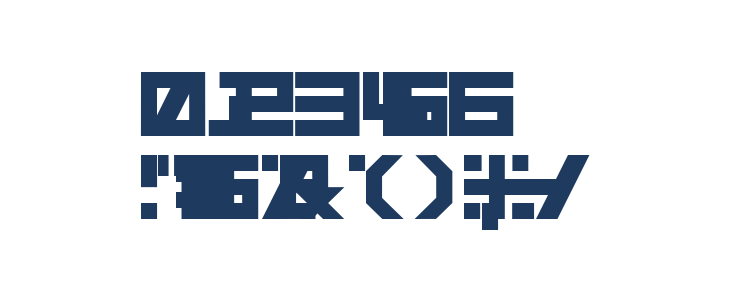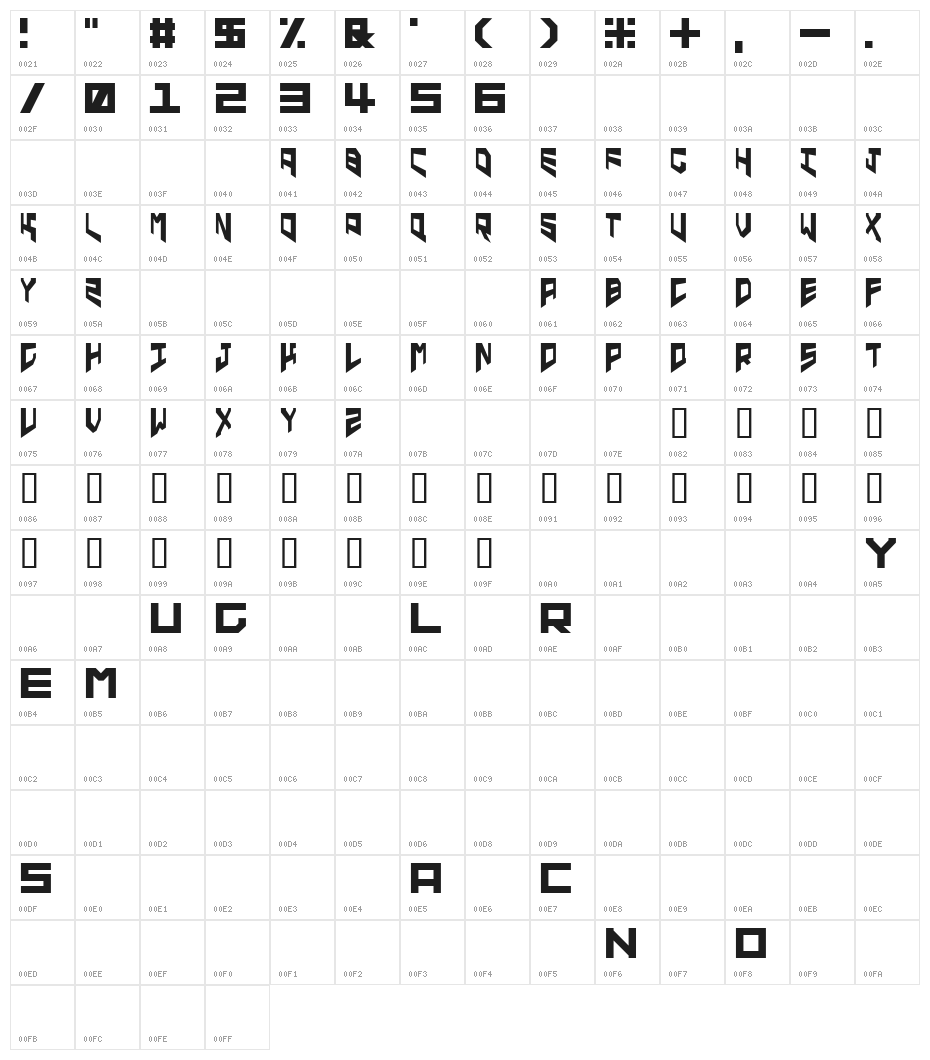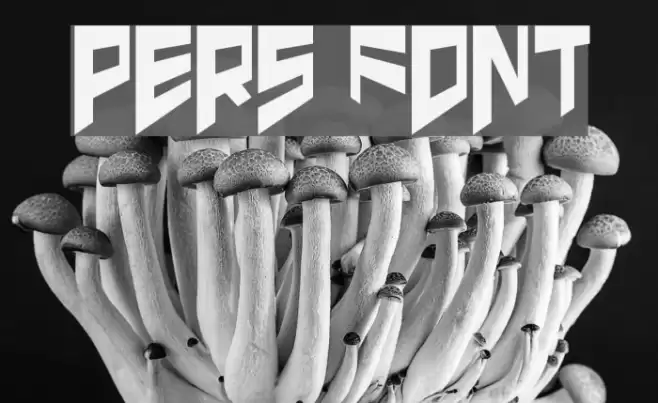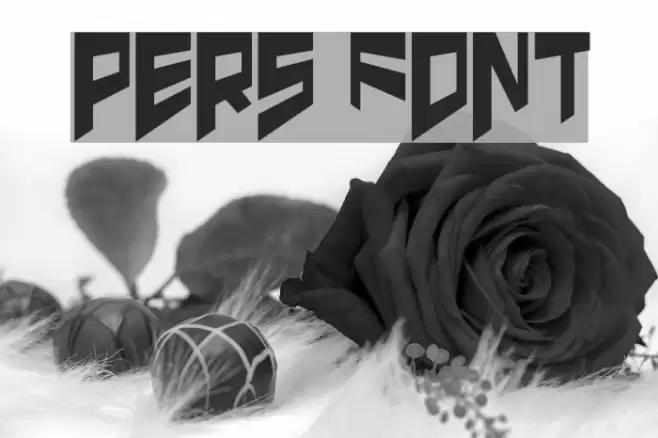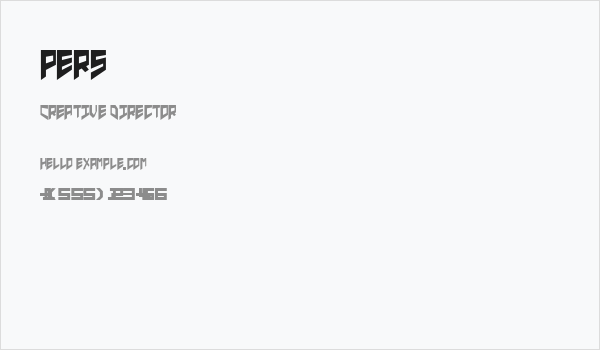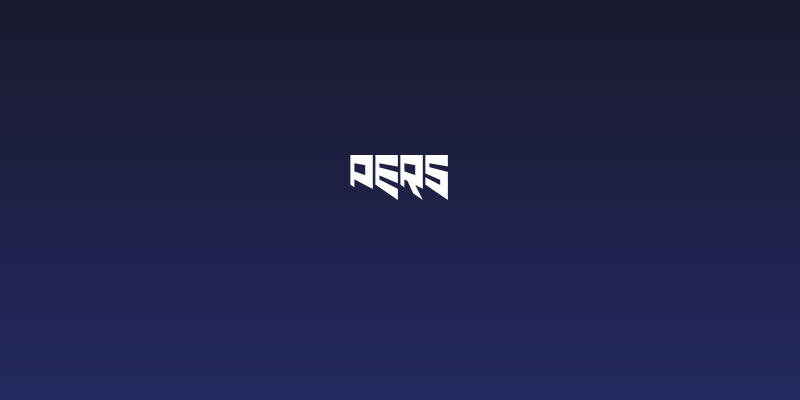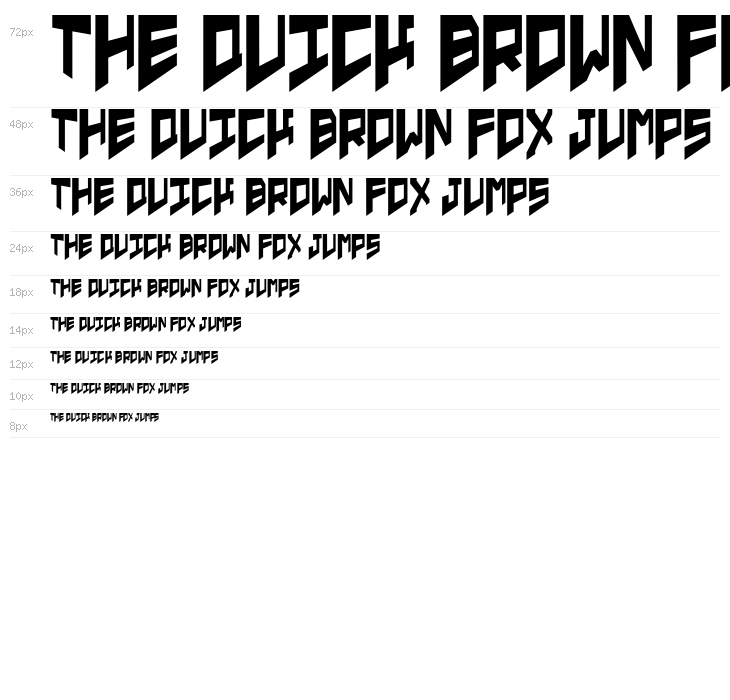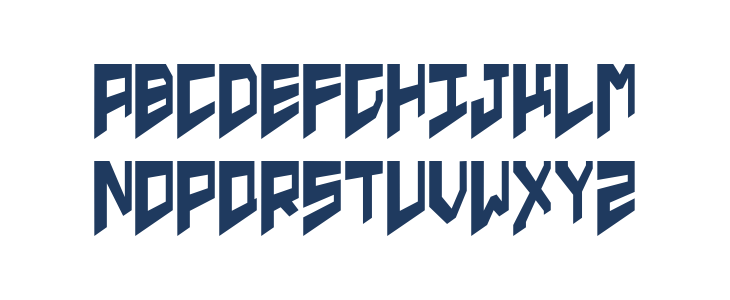
pers Font
pers Description
This font features a bold, angular design with a futuristic and geometric aesthetic. The characters are constructed with sharp, pointed edges and a blocky structure, giving it a dynamic and aggressive appearance. The uppercase and lowercase letters maintain a consistent style, with the lowercase being slightly more compact. Numbers and special characters follow the same angular theme, ensuring uniformity across all glyphs. The font's unique style makes it stand out, ideal for projects that require a modern and edgy look.
| Overall Style | Futuristic, Geometric |
| Proposed Projects | Ideal for video game titles, sci-fi movie posters, tech-related branding, and edgy graphic design projects. |